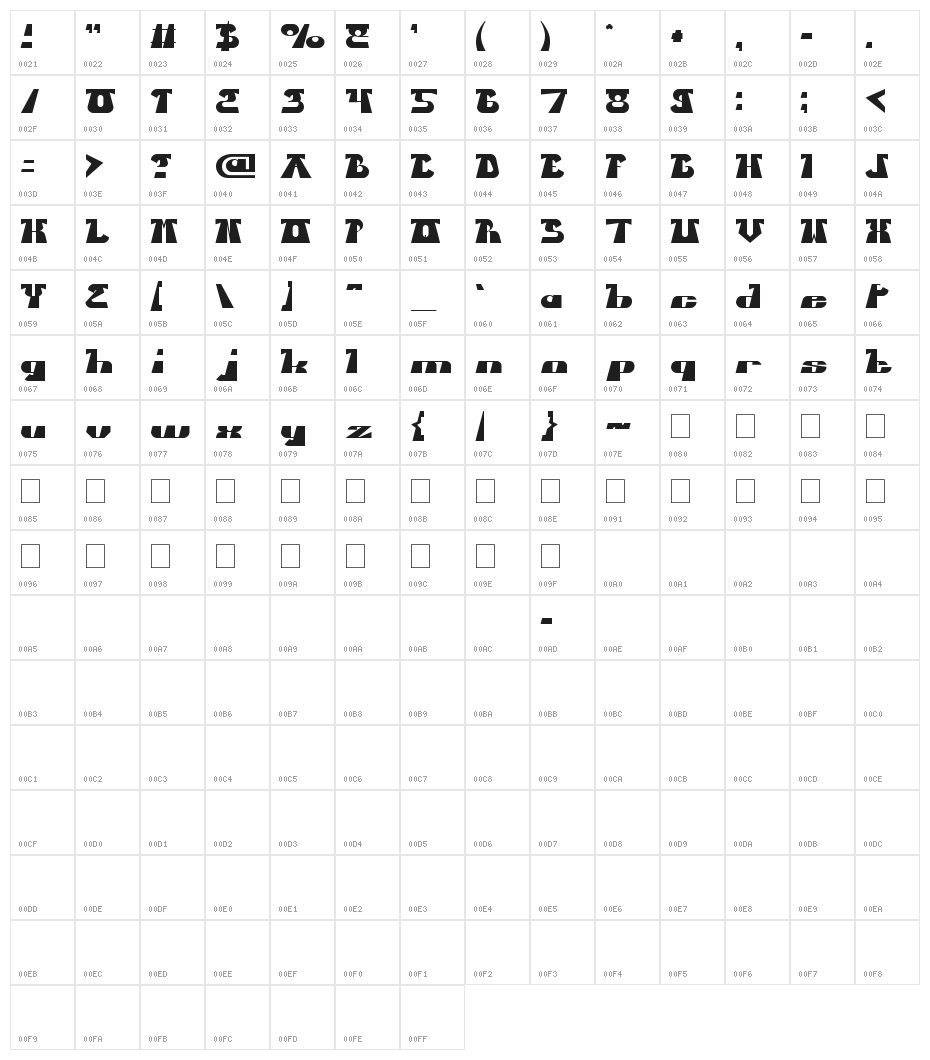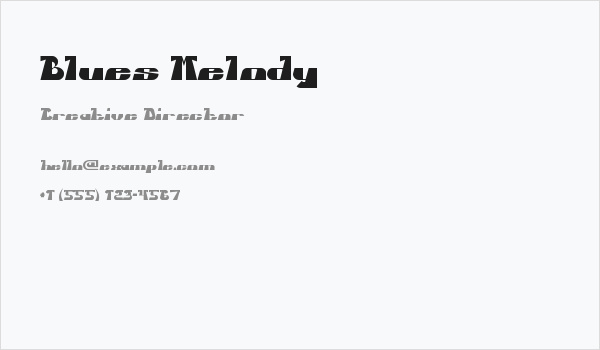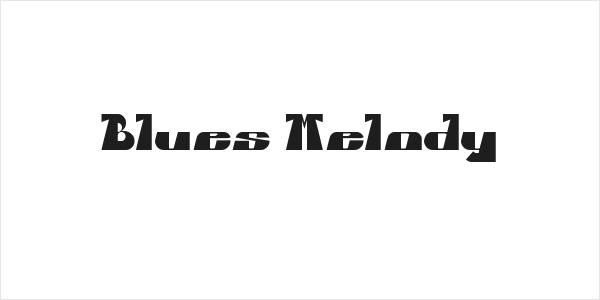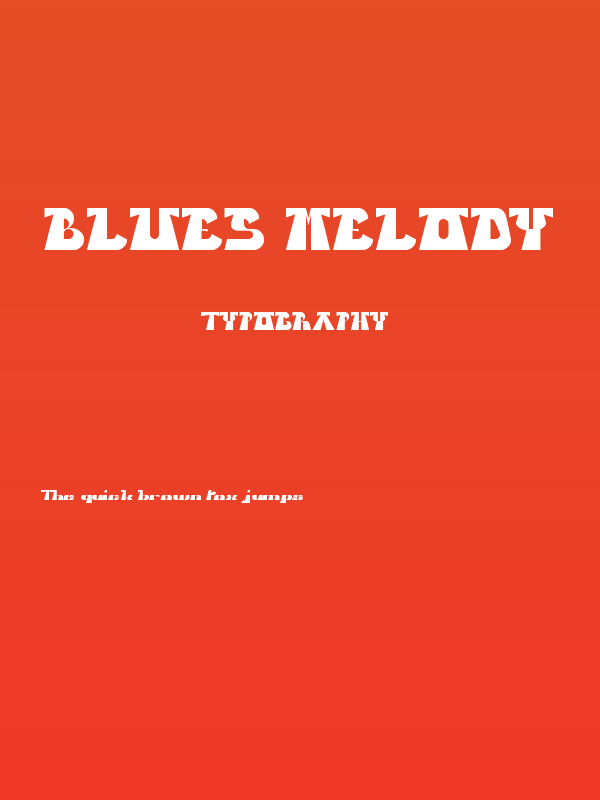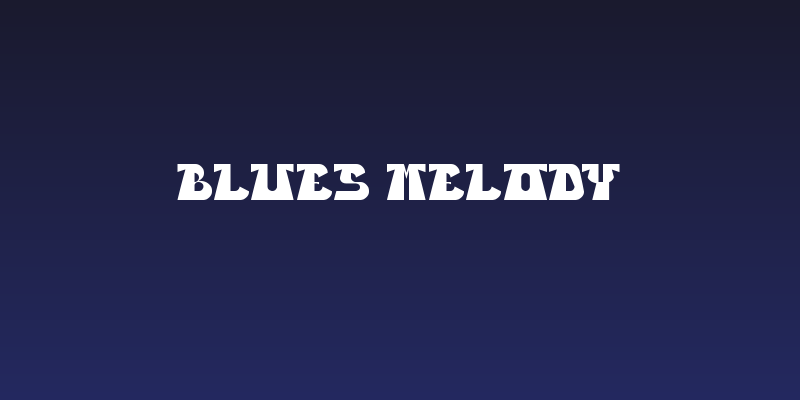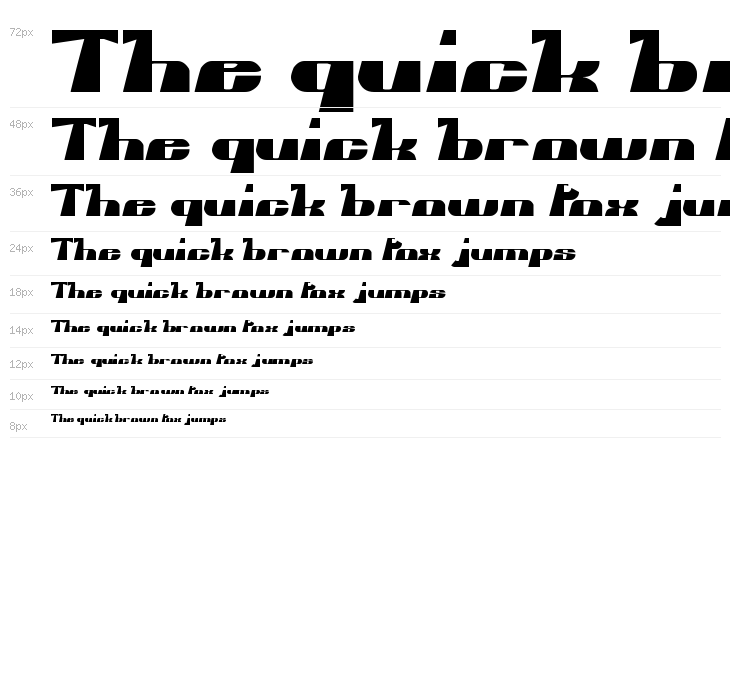
Blues Melody Font
Blues Melody Description
This font features a bold and dynamic style with a strong geometric influence. The characters are designed with sharp angles and a distinct blocky appearance, creating a sense of movement and energy. The uppercase letters are particularly striking, with their wide, angular forms that command attention. The lowercase letters maintain the same boldness, offering a cohesive look across different text cases. Numbers and special characters are crafted with the same attention to detail, ensuring consistency throughout. This font is ideal for projects that require a bold statement or a modern, edgy feel.
| Proposed Projects | Ideal for music album covers, posters, branding, and any project needing a bold, modern look. |